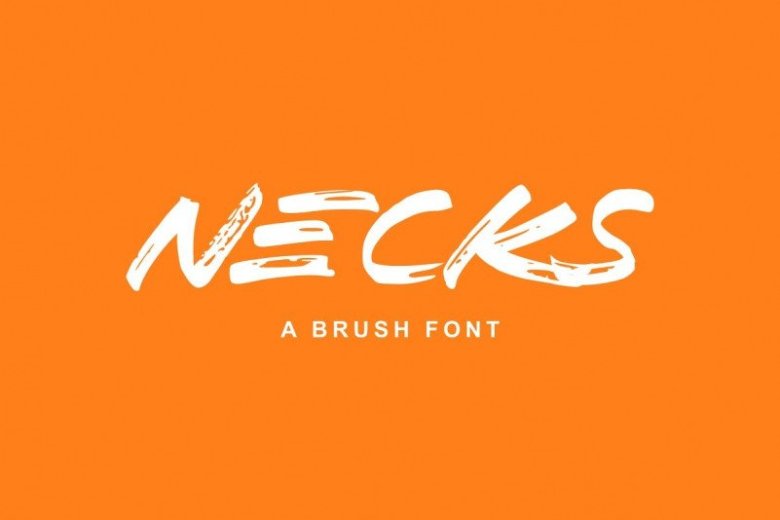
Necks Brush Font Free
Necks Brush Font is a lovely brush typeface. The handwritten combined with brush font will make your design project more attractive. Made from font designer named Andika Fez. This font is a bold and chunky lettered display font, created with the help of a brush pen. It is the best for logos, branding and quotes. Add this font to your favorite creative ideas!